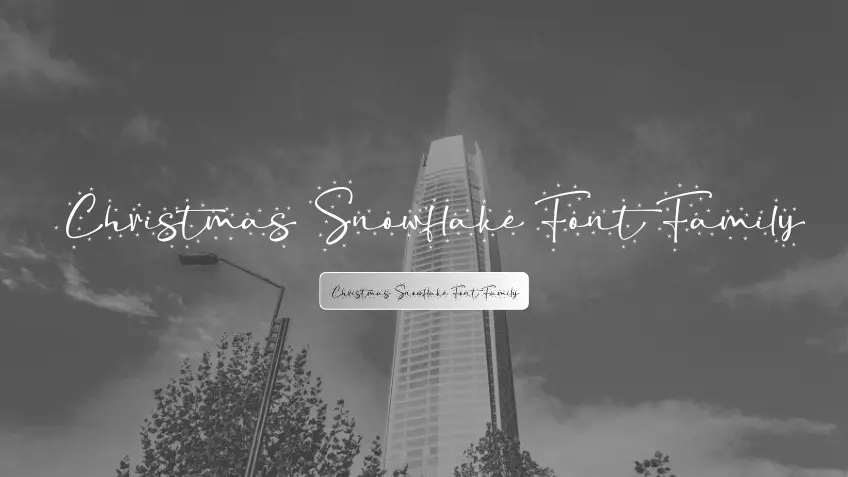
Christmas Snowflake Regular
The font Christmas Snowflake Regular, designed by Stefani Tri Rosa Setiati Christiana, falls under the Display, Handwritten, Script category & Christmas Snowflake font family. Its smooth, flowing letterforms make it a versatile choice for projects that require both elegance and readability. Christmas Snowflake is particularly well-suited for Poster, Body Text, Event Posters, Invitations, Greeting Cards, Advertisements, Holiday cards, Banners, Christmas, Gifts and Christmas cards. With its balance of simplicity and decorative appeal, this font brings a polished touch to both personal and professional designs.